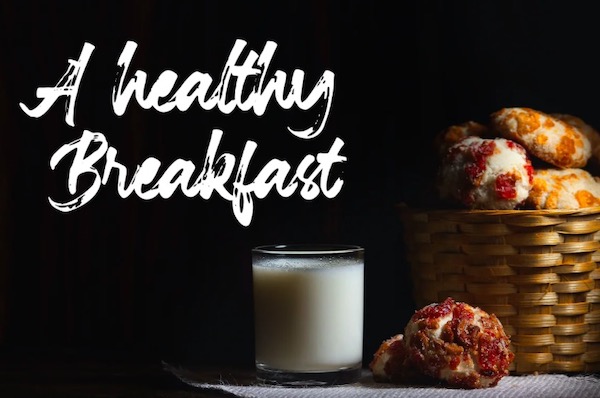
Bougher Brush Font
Bougher is a modern beautiful brush font that was created and shared by VZ Type. This script font has a contemporary approach to design, natural handmade with an irregular baseline. It’s suitable for use in title design such as books tittle, quotes, logos, invitations, packaging designs, stationery design, apparel, branding, greeting card, poster, t-shirt, and more.